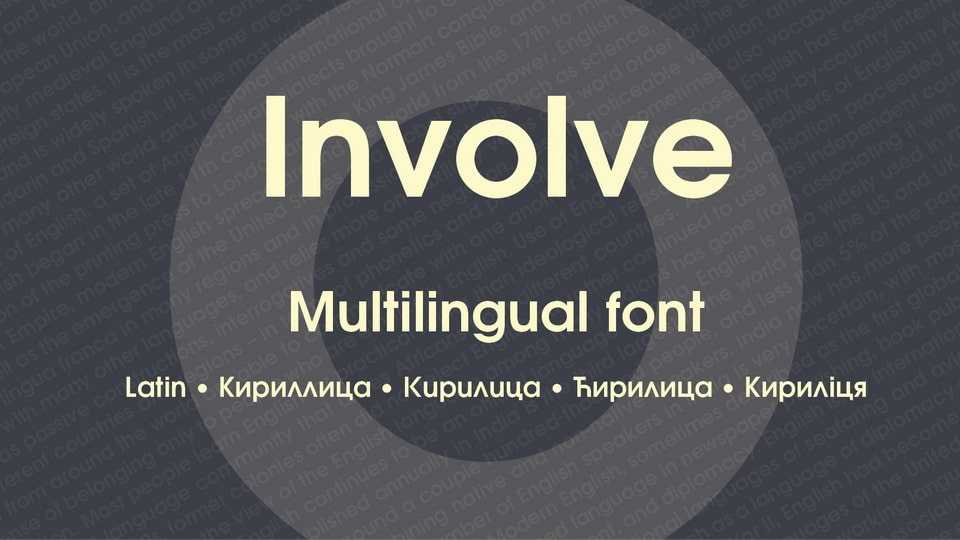
Download Involve font, a sans serif typeface based on the project Evolventa. Evolventa is a Cyrillic extension of the open-source URW Gothic L font family.
Designer: Stefan Peev